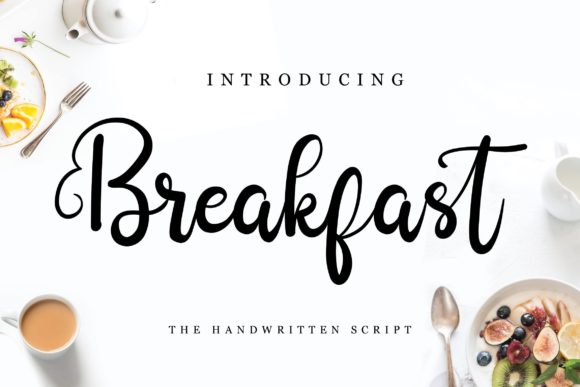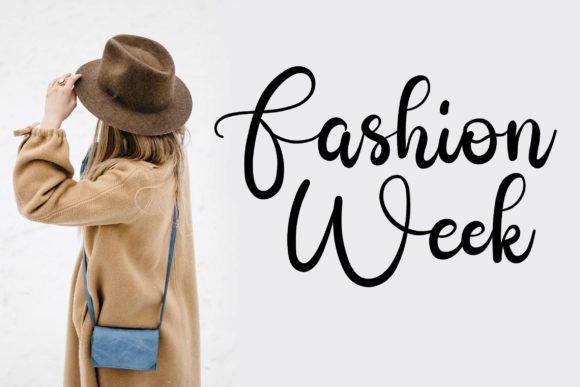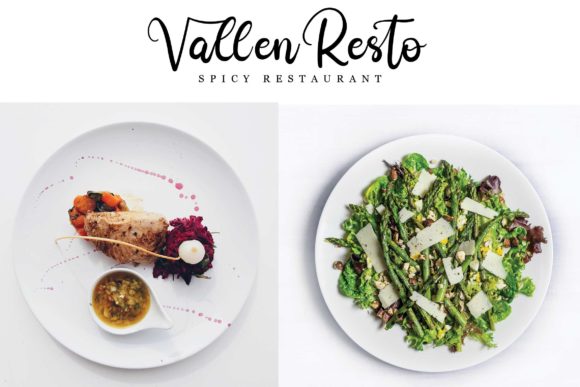
About Breakfast Font
Breakfast is a captivating handwritten font that captures the essence of artistic curves and elegant design. With its enchanting letterforms, this font is an excellent choice for various design projects, adding a touch of sophistication and charm to each creation.
The font’s beauty lies in its intricate curvature, which imparts a sense of uniqueness and creativity to any text. This makes Breakfast a perfect option for both formal and informal designs, allowing it to shine across a wide range of contexts.
One of the font’s strengths is its ability to enhance the visual appeal of various design projects. Whether used for headers, titles, or body text, Breakfast’s flowing letterforms create a harmonious and visually pleasing composition that captures the viewer’s attention. Its enchanting appearance is sure to leave a lasting impression on anyone who encounters it.
Breakfast’s versatility is showcased in its adaptability to different design themes. From elegant and sophisticated designs to whimsical and creative ones, this font seamlessly fits into various aesthetics, adding a sense of wonder and artistic flair to every layout.
For formal projects, such as invitations, event posters, or branding materials, Breakfast brings a touch of class and elegance. Its elegant curves and well-crafted characters create an inviting and memorable impression, setting the tone for any formal occasion.
On the other hand, Breakfast’s enchanting handwritten style adds a personal and warm touch to more casual designs. It can be used on social media graphics, blog post titles, or even personal stationery to infuse a sense of authenticity and creativity into the visual content.
The font’s captivating nature makes it a fantastic choice for adding subtle beauty to various design elements, including quotes, logos, packaging, and more. It effortlessly transforms simple text into a work of art, elevating the overall aesthetic of your projects.
With Breakfast, you can unleash your creativity and explore a world of design possibilities. Its beautiful and enchanting handwritten style ensures that your designs resonate with elegance, charm, and artistic flair, making it a valuable asset for any designer or creative project.